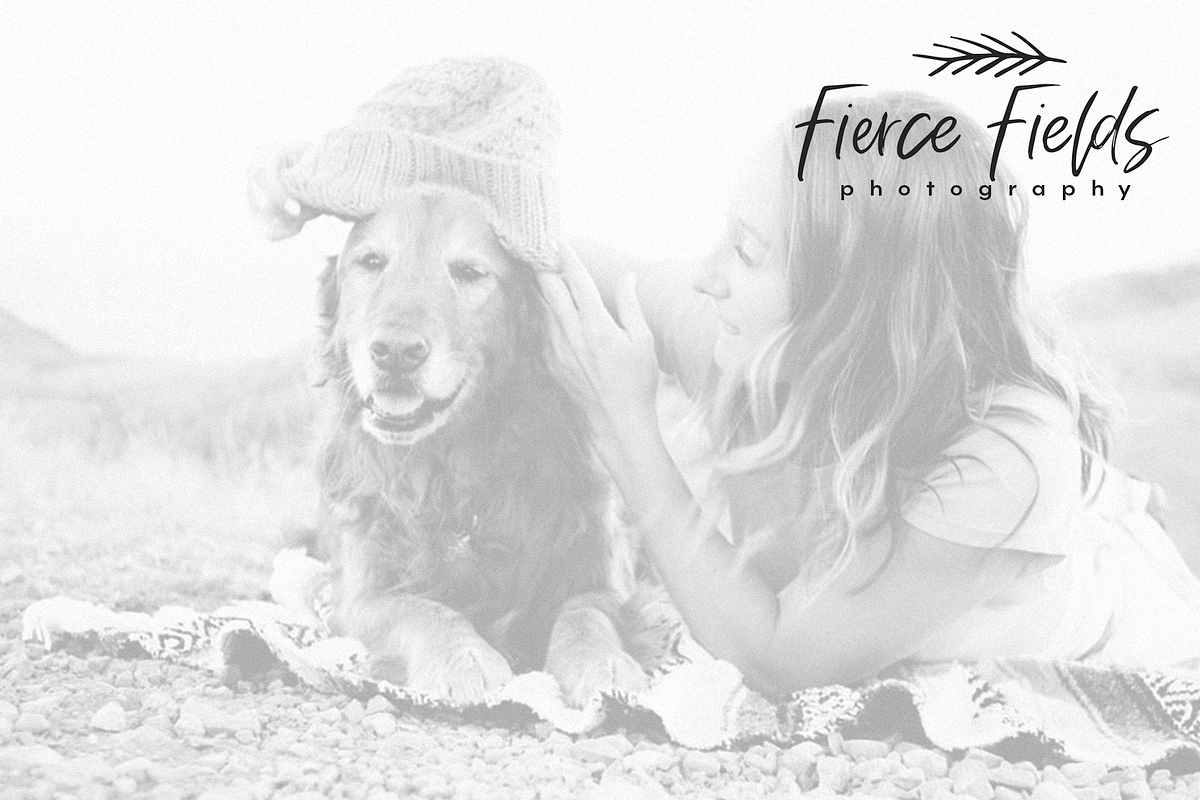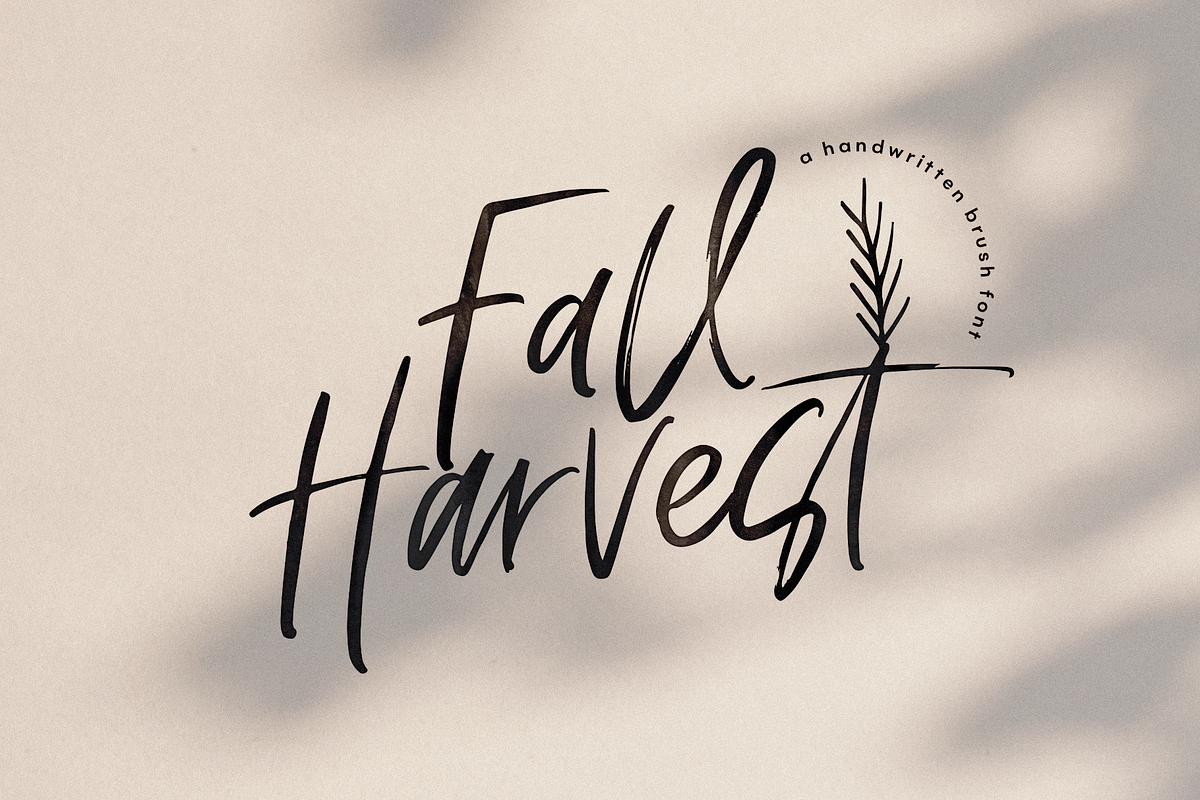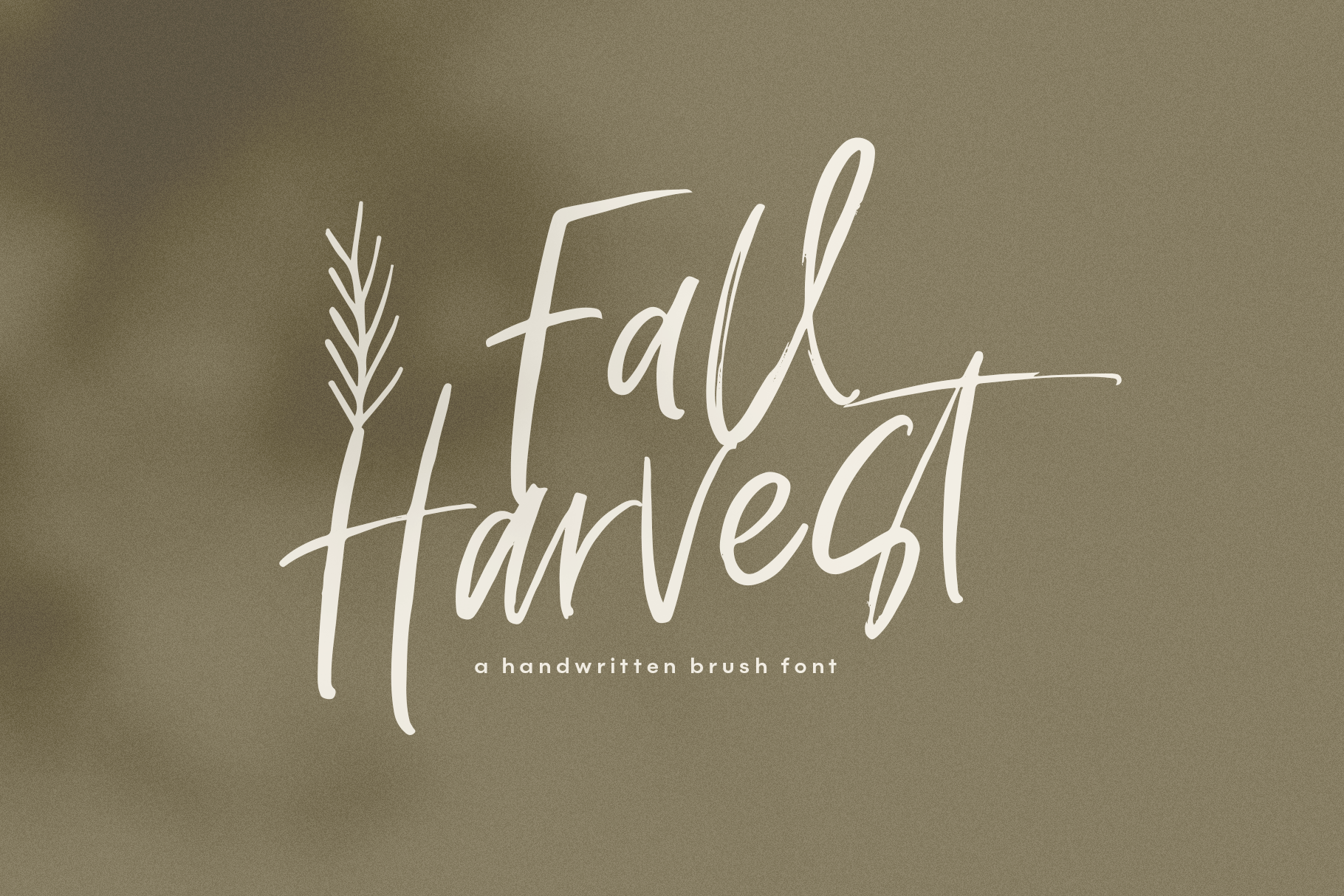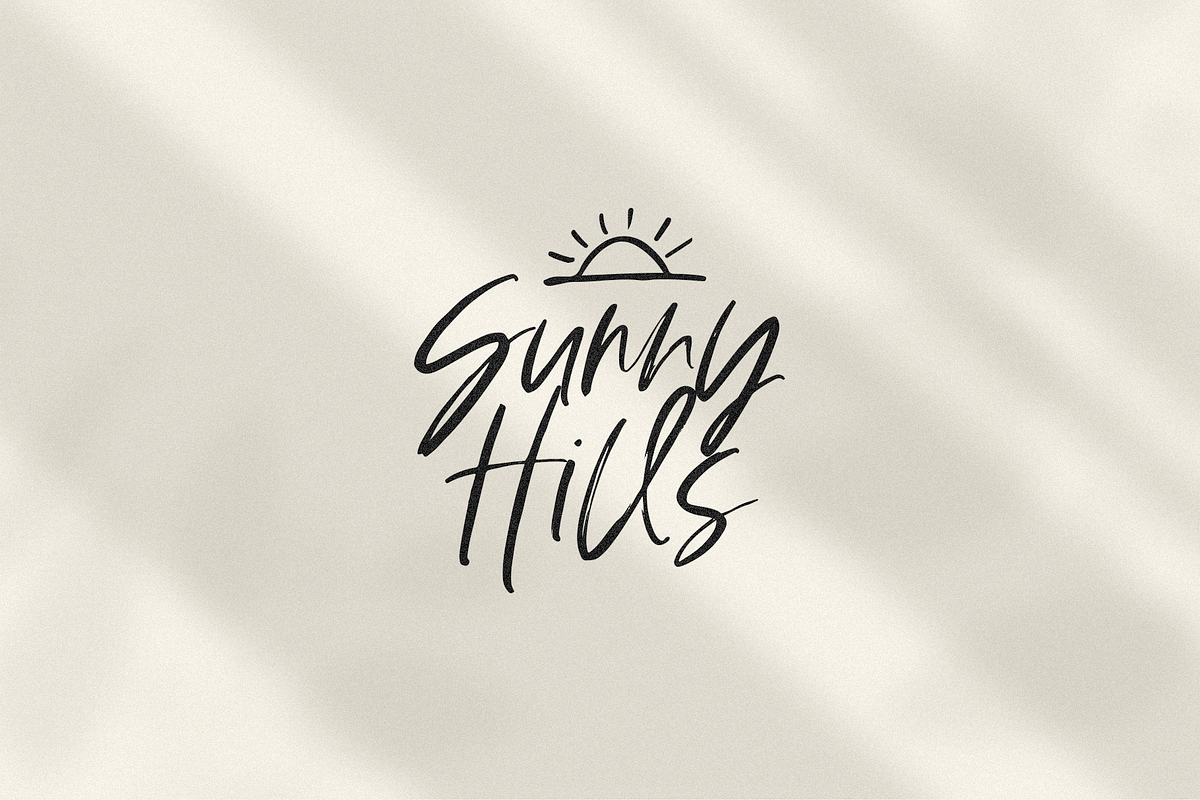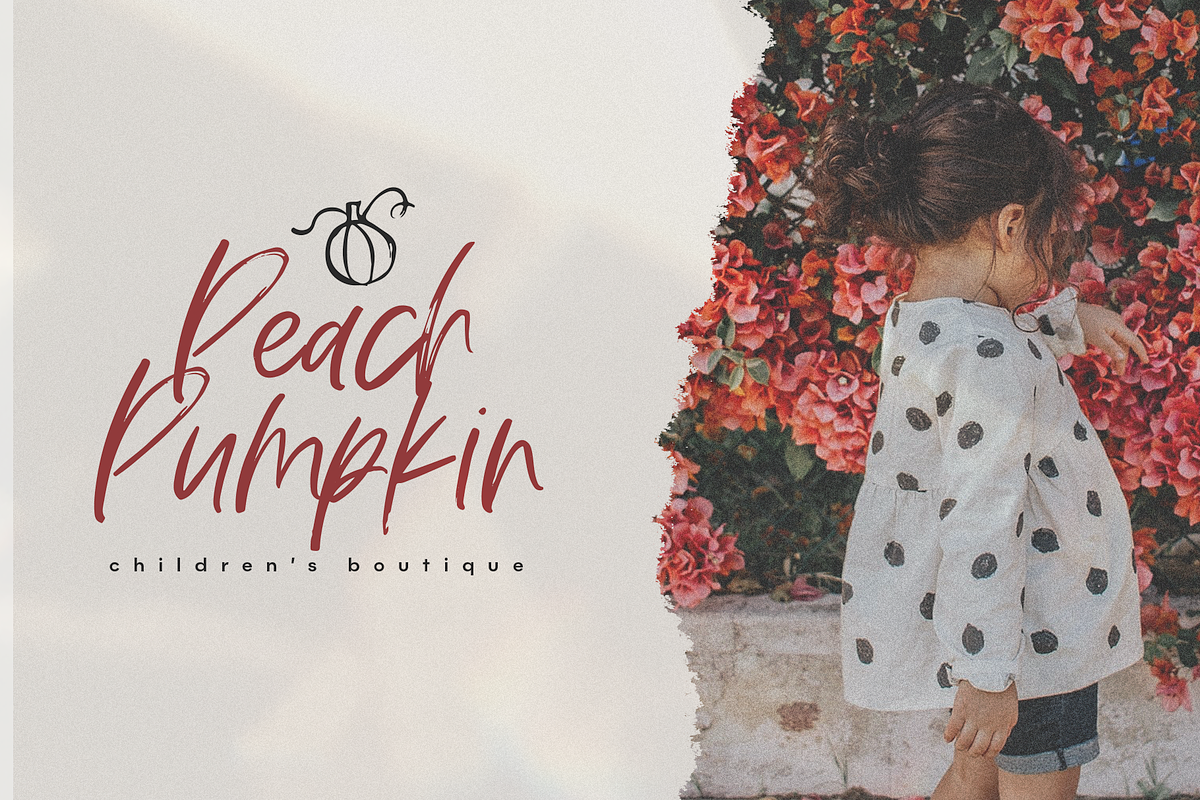
Fall Harvest - Font with Extras
Fall Harvest is a handwritten script font written with a brush pen. This font has an authentically messy look. A set of complimentary doodles are included as a font file.
This font is perfect for modern projects, headings, blogs, logos, signs, brandings, invitations and more!